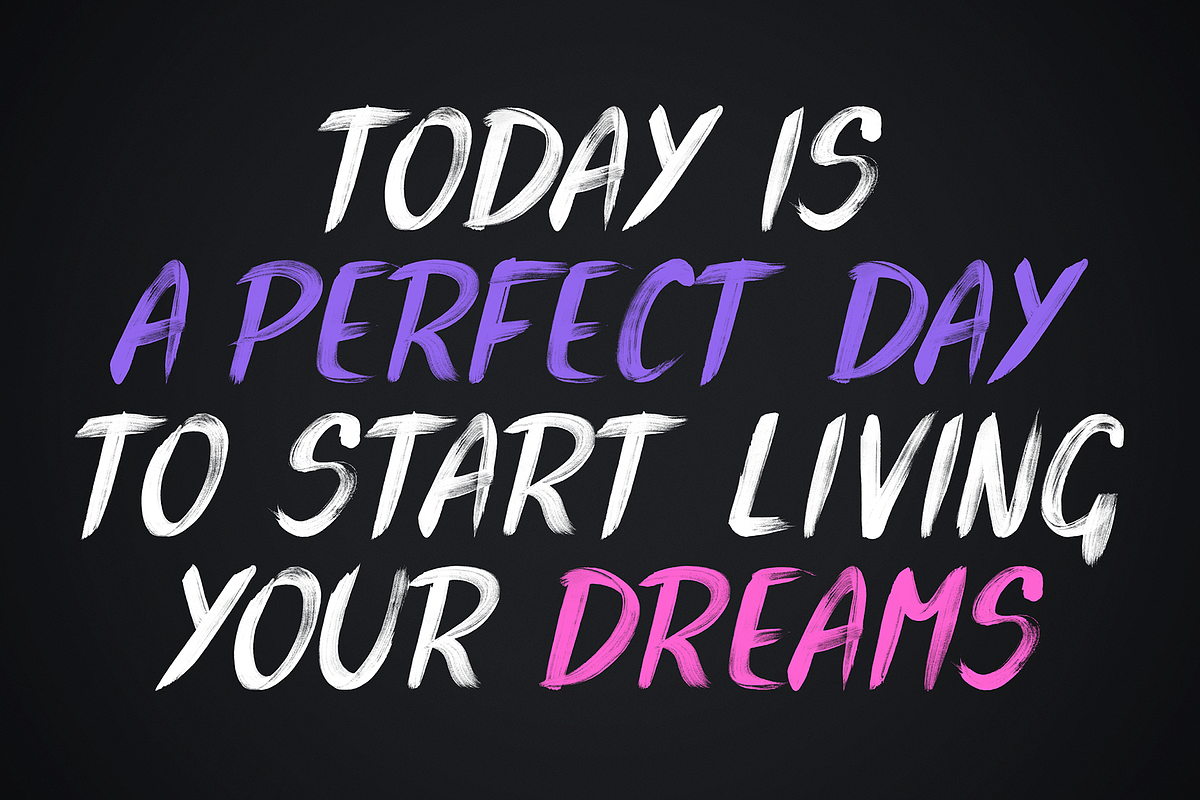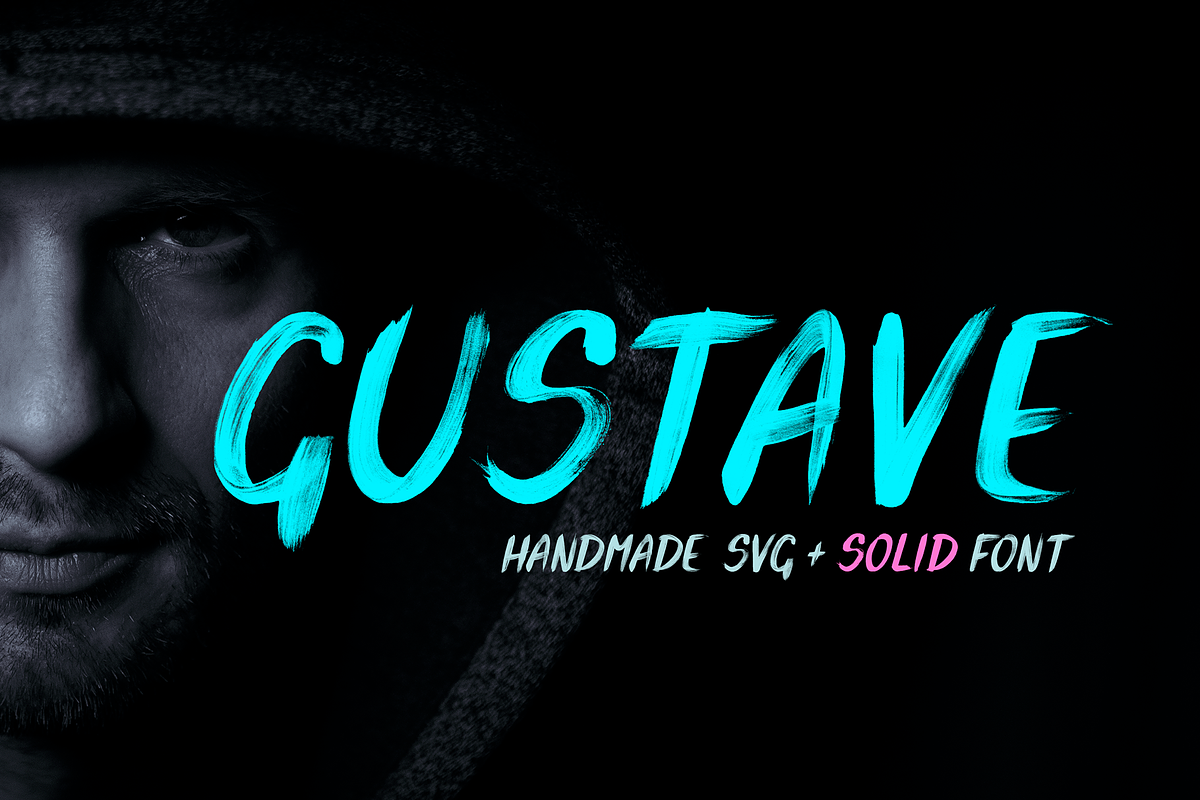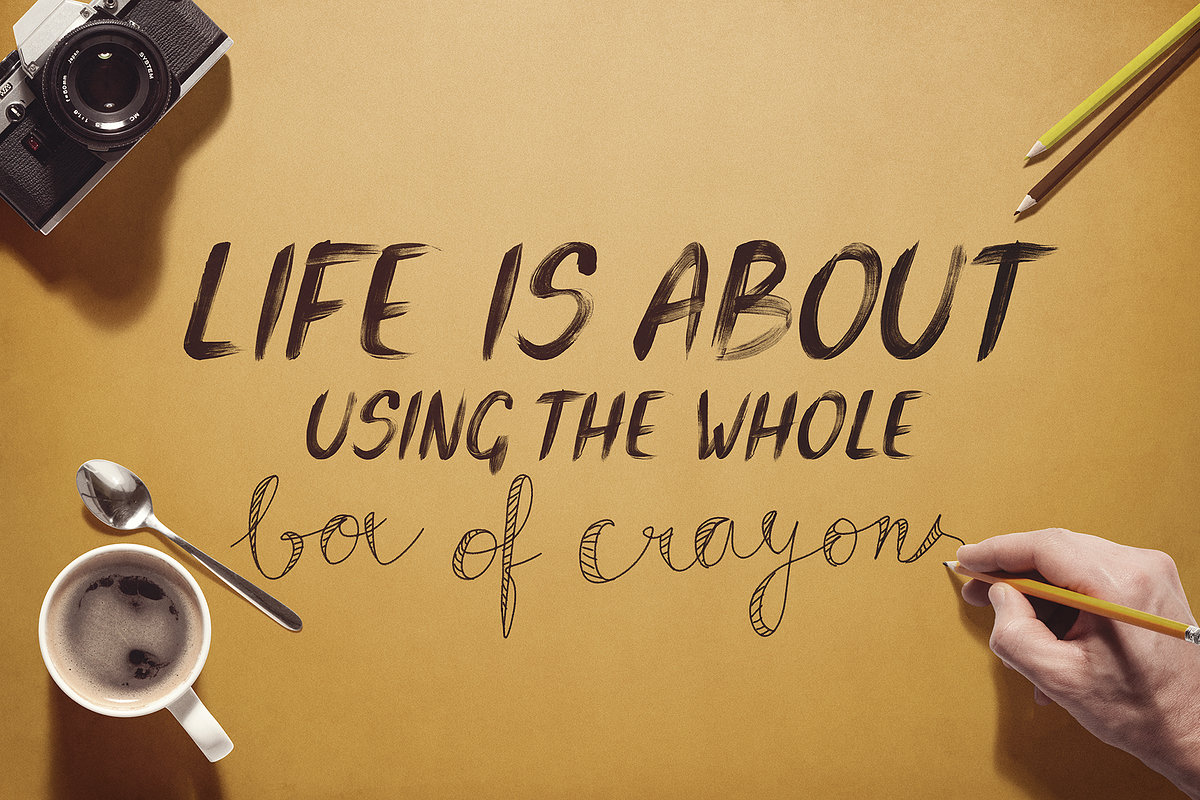
Gustave SVG Font
Gustave is our debut all-caps handmade brush font made using acrylic paint.
A-Z uppercase letters (this is a unicase font, it only has uppercase letters)
Symbols: ` ¬ ! " £ $ € § % ^ & + - = ( ) [ ] { } ; : ' @ # ~ , . / ? |